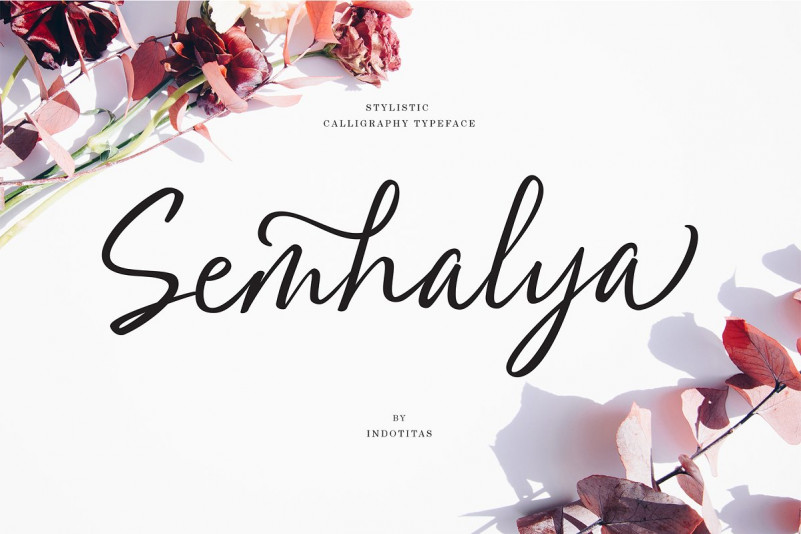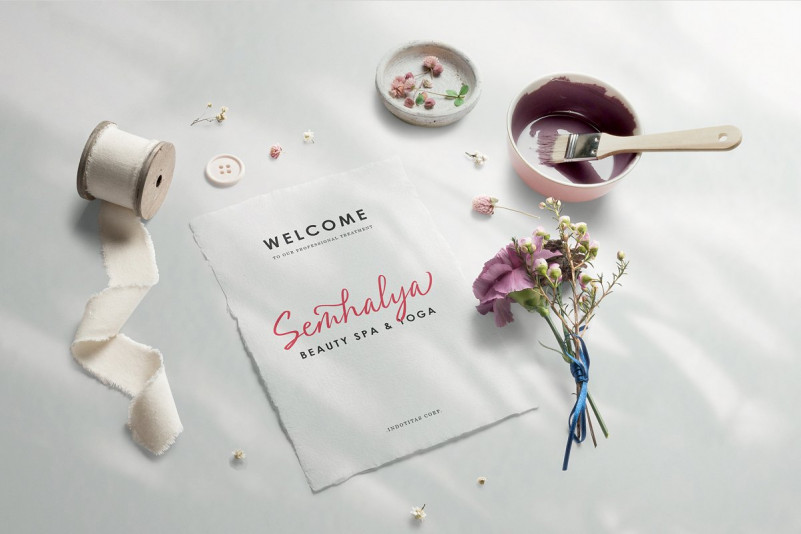
Semhalya Font
Semhalya created with stylistic calligraphy characters. This modern calligraphy font was PUA encoded. Semhalya is a wavy dancing calligraphy style that comes with Extended Latin Characters. Semhalya works perfectly for logos, display, product branding, wedding invitation card, stationary, packaging, clothing, flyer, apparel, magazines, brochures, lable, posters, badges, etc.